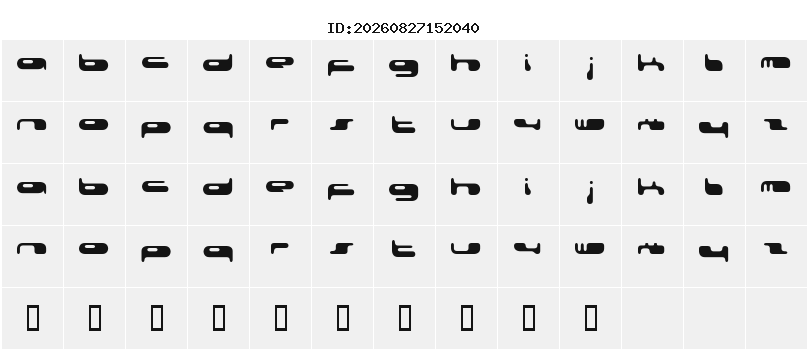
08 02 03 Preview
• Font Name: 08 02 03
• Font Style: Fenotype
• Font ID: Macromedia Fontographer 4.1 08 02 03 Fenotype
• Full Font Name: 08 02 03 Fenotype
• Version: FENOTYPEFACES 2003
• PostScript Name: 080203Fenotype
• Character Count: 53
About 08 02 03.ttf
08 02 03.ttf is a modern, elegant sans-serif font designed for ultimate readability and visual harmony. Perfect for branding, headlines, web design, and print materials.